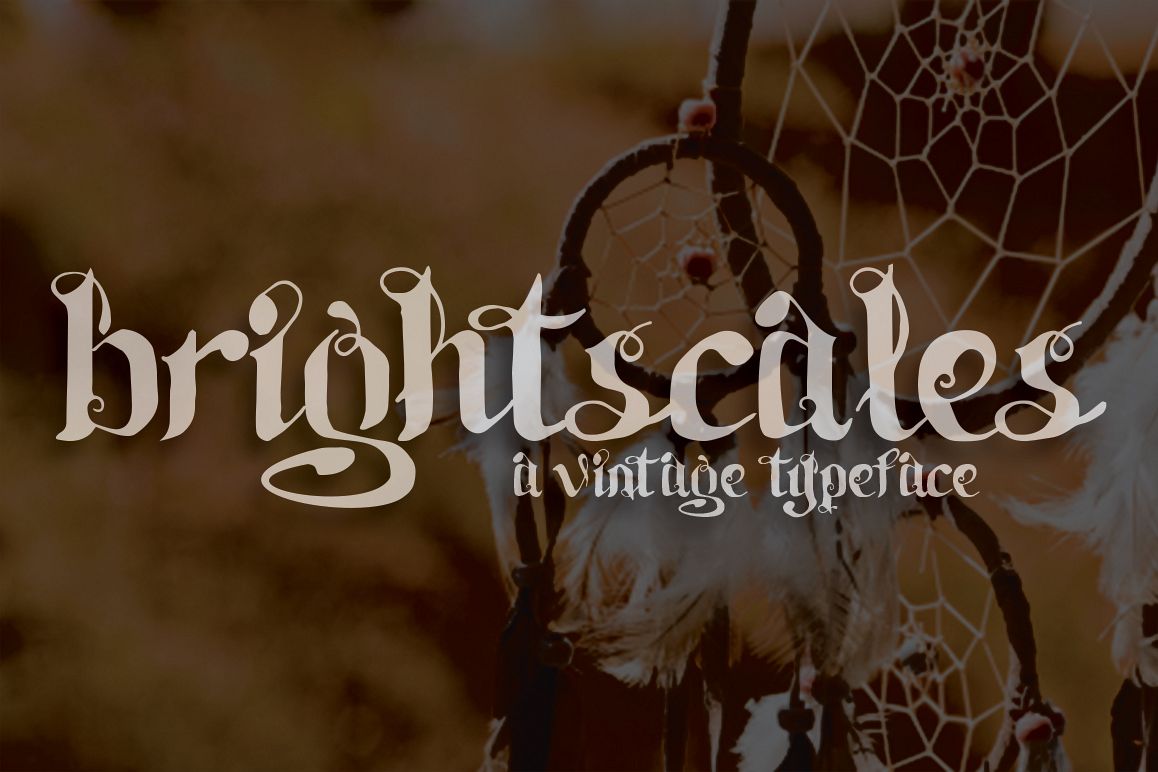
Brightscales Typeface
Introducing "Brightscales Vintage Typeface" Can be used for various purposes namely headings, logos, wedding invitations, t-shirts, letterheads, signages, labels, news, posters, badges etc. Product Content: Brightscale.otf Brightscale.ttf Brightscale Web Font (eot, svg, woff) Features: Uppercase Lowercase Numeral & Punctuations Use a program that supports OpenType features such as Adobe Illustrator CS, Adobe Indesign & CorelDraw X6-X7 to access the full features of this typeface. How-to pdf included in the package. Feel free to contact me for additional supports. Personal and Commercial use is permitted